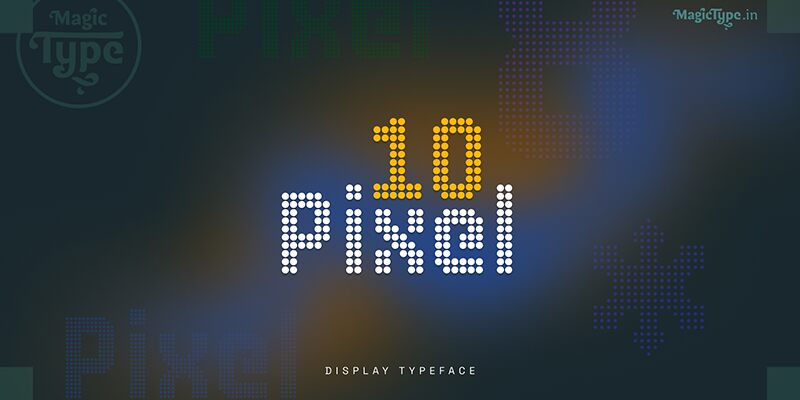
10 Pixel Bold
Introducing '10 Pixel', a rounded pixel typeface with three unique weights.
'10 Pixel' is a rounded pixel typeface with three unique weights by pixel density; Light, Mild, and Strong. This font design is based on a 10-pixel unit height, giving it a consistent and uniform appearance. The glyphs are semi-condensed with equidistant pixels, providing a precise and balanced look. While this is not a monospace font, it includes monospace tabular number figures.
The glyphs are optimized for creating impactful and eye-catching large-size headlines, titles, and display text for logos, branding, billboards, and posters. It may not be as suitable for smaller-size text.
'10 Pixel' is a rounded pixel typeface with three unique weights by pixel density; Light, Mild, and Strong. This font design is based on a 10-pixel unit height, giving it a consistent and uniform appearance. The glyphs are semi-condensed with equidistant pixels, providing a precise and balanced look. While this is not a monospace font, it includes monospace tabular number figures.
The glyphs are optimized for creating impactful and eye-catching large-size headlines, titles, and display text for logos, branding, billboards, and posters. It may not be as suitable for smaller-size text.